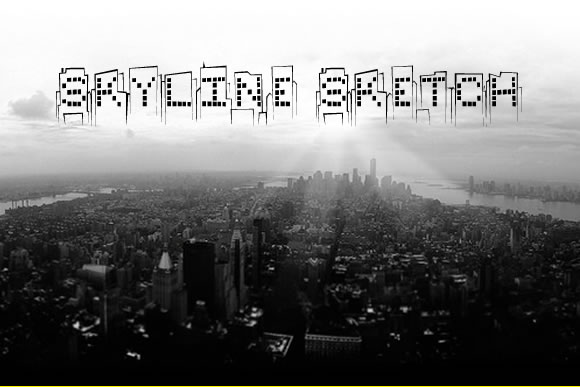
**Headline:** Embark on a Typographic Adventure with Skyline Sketch Font
Prepare to ascend to new heights in your design endeavors with our captivating Skyline Sketch font. Step into a world of limitless creativity, where imagination takes flight and your projects soar above the ordinary.
Unleash your inner artist with Skyline Sketch, a decorative masterpiece that paints a bold and expressive canvas. Each stroke evokes the grandeur of a cityscape, with towering lines and sweeping curves.
Indulge in the freedom to create eye-catching logos, captivating social media posts, and stunning website designs. Skyline Sketch's versatile nature empowers you to convey your message with flair and originality.